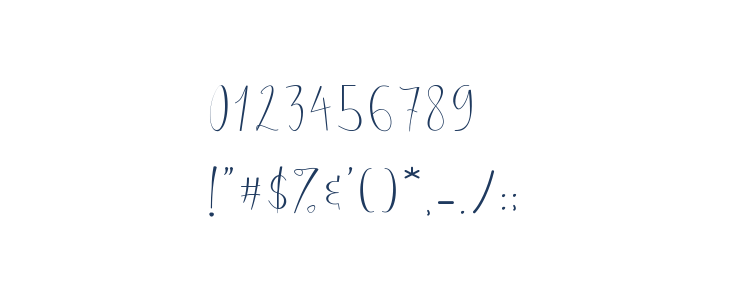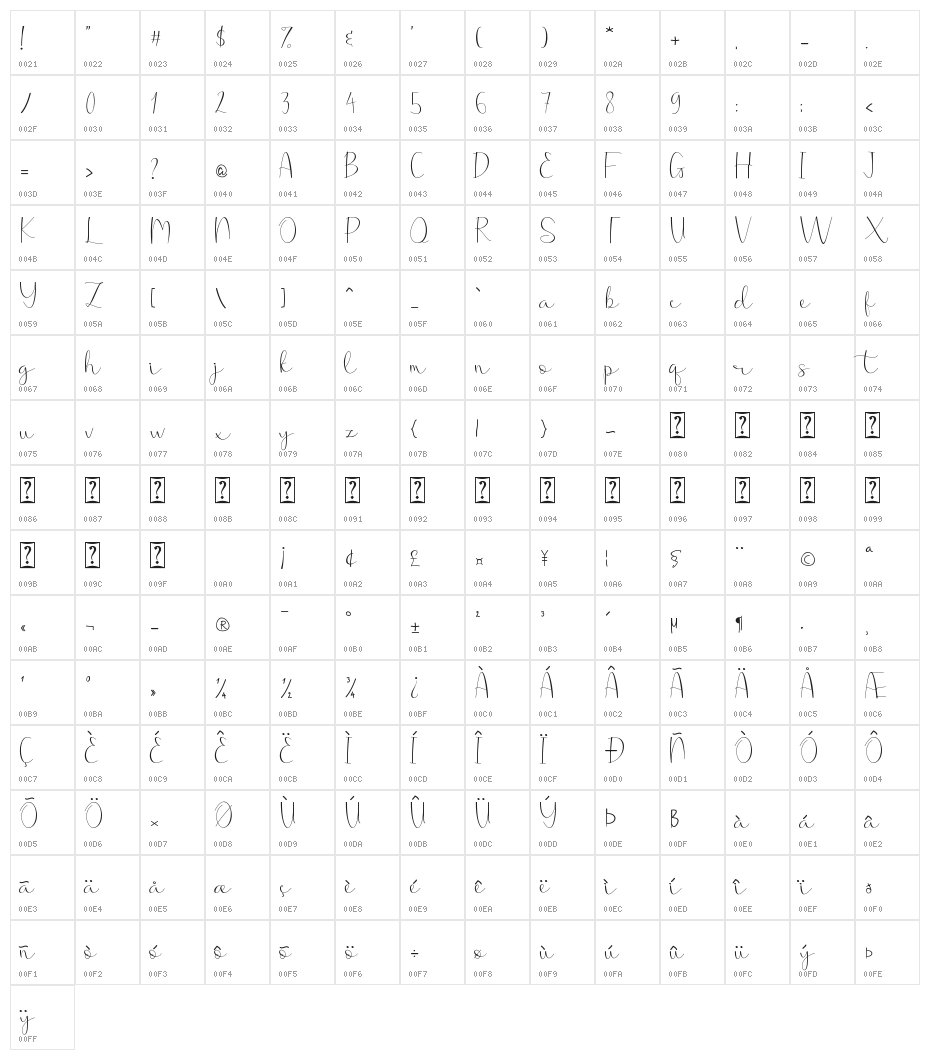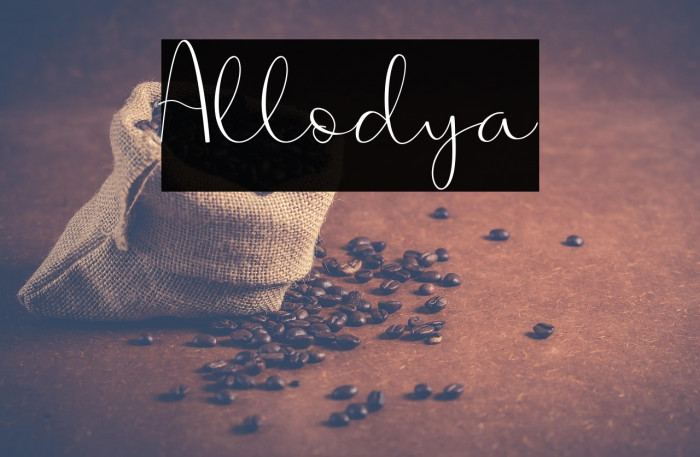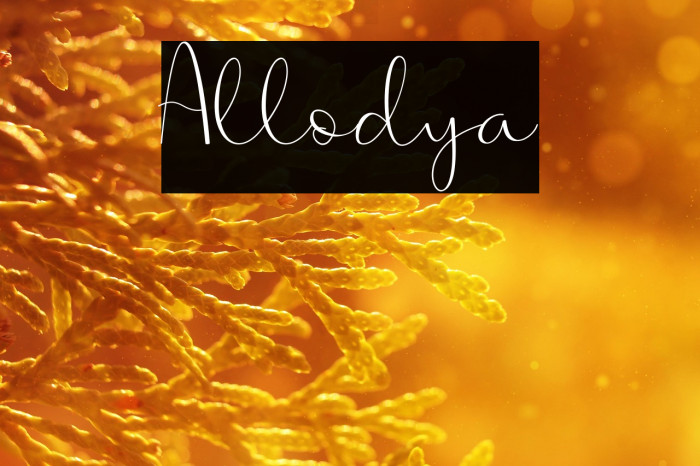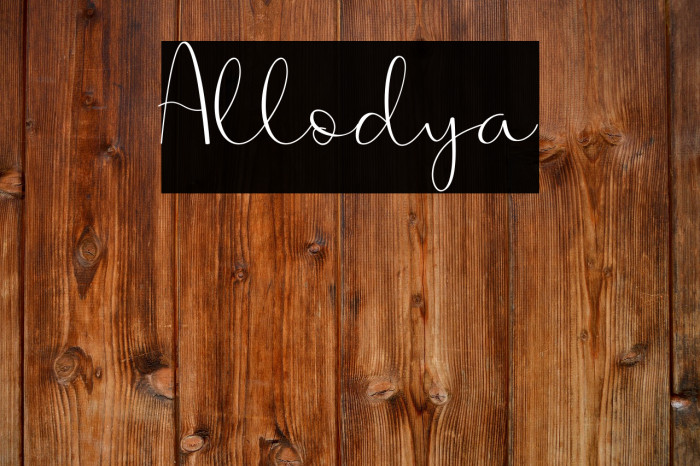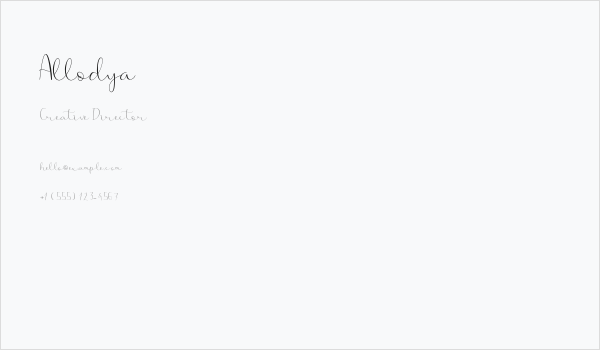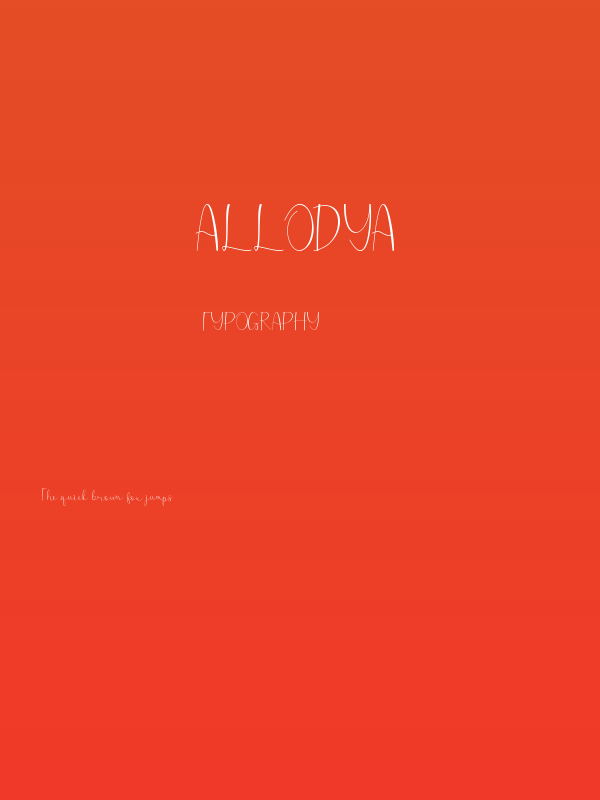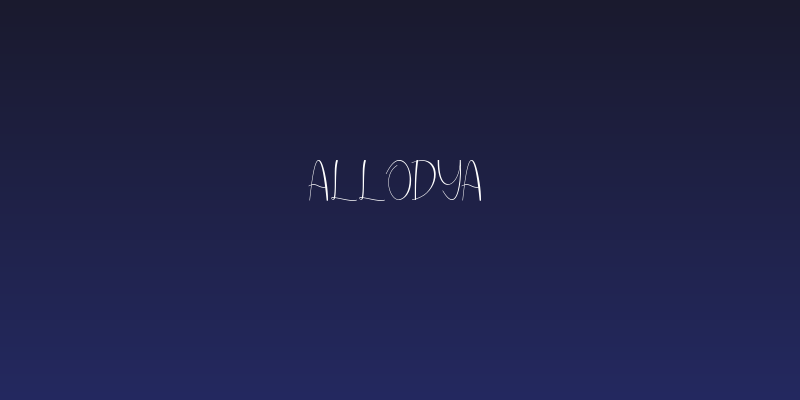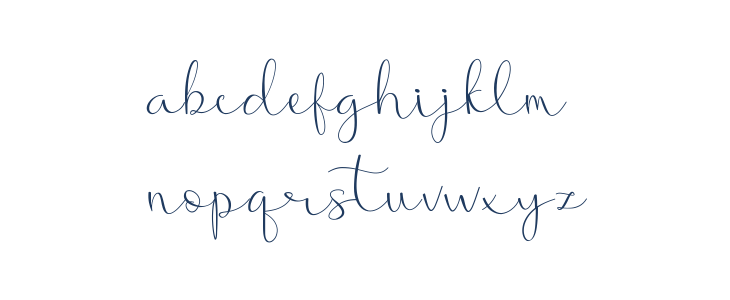
Allodya Font
Allodya Description
This font features a playful and whimsical handwritten style, characterized by its flowing and slightly irregular letterforms. The uppercase letters are tall and slender, with a slight slant that adds to the casual feel. The lowercase letters maintain a consistent style, with loops and curves that give a sense of movement and fluidity. Numbers and special characters follow the same aesthetic, ensuring a cohesive look across all text. The overall appearance is light and airy, making it suitable for projects that require a personal touch.
| Overall Style | Whimsical |
| Use Case | Logos, Invitations, Greeting Cards |
| Proposed Projects | Ideal for greeting cards, invitations, personal branding, and creative projects that require a whimsical touch. |